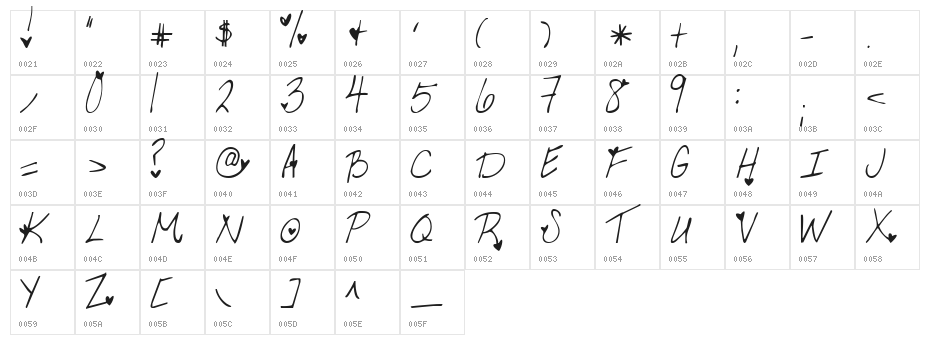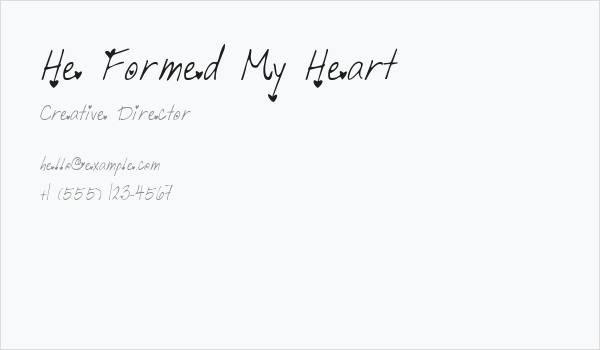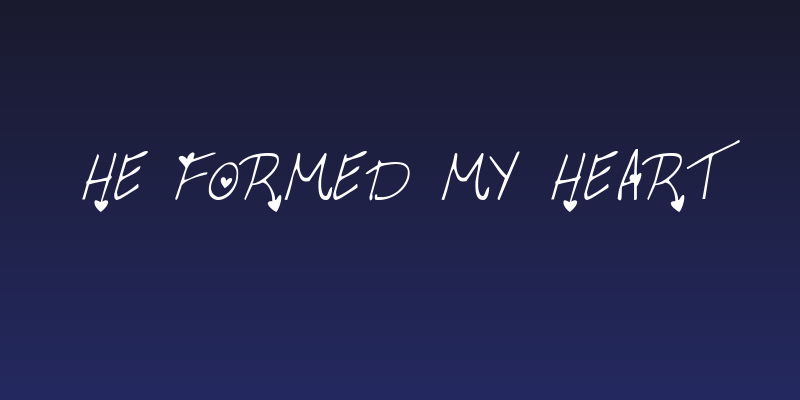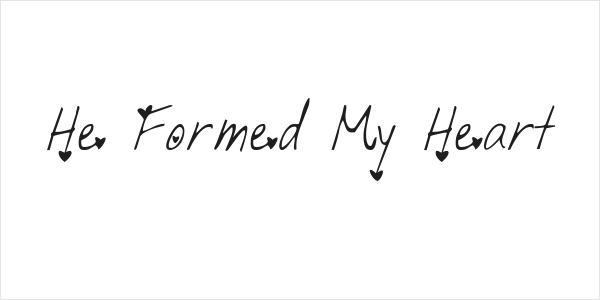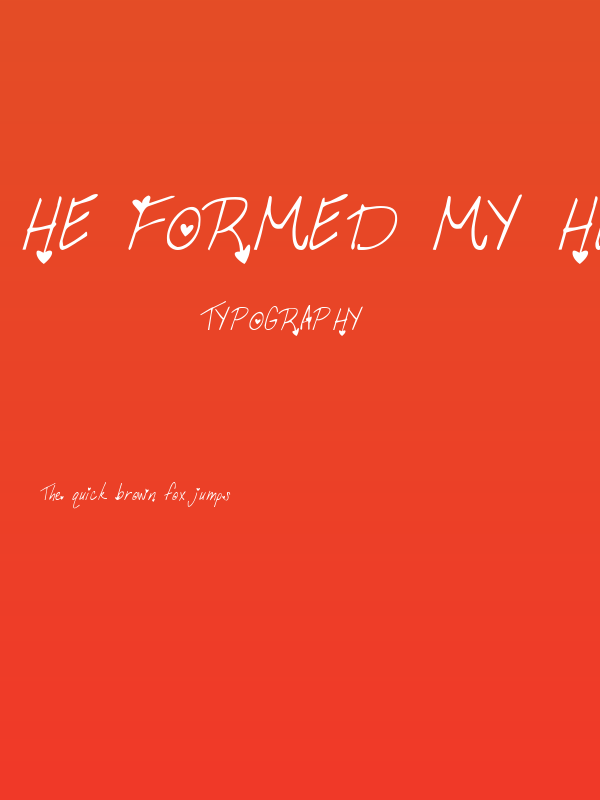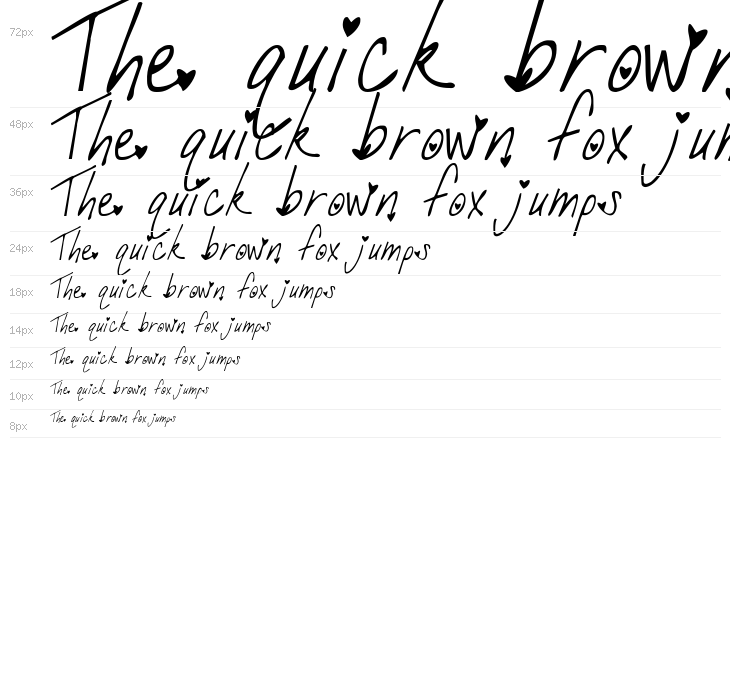
He Formed My Heart Font
He Formed My Heart Description
This playful and whimsical font features a handwritten style with a unique twist. Each character is adorned with heart motifs, either integrated into the letterforms or as decorative elements. The strokes are smooth and flowing, giving it an informal and friendly appearance. The font maintains a consistent stroke width, which contributes to its legibility despite the decorative elements. It is perfect for projects that require a personal touch or a romantic theme, such as wedding invitations, greeting cards, or love-themed branding.
| Proposed Projects | Ideal for wedding invitations, greeting cards, love-themed branding, and personal stationery. |